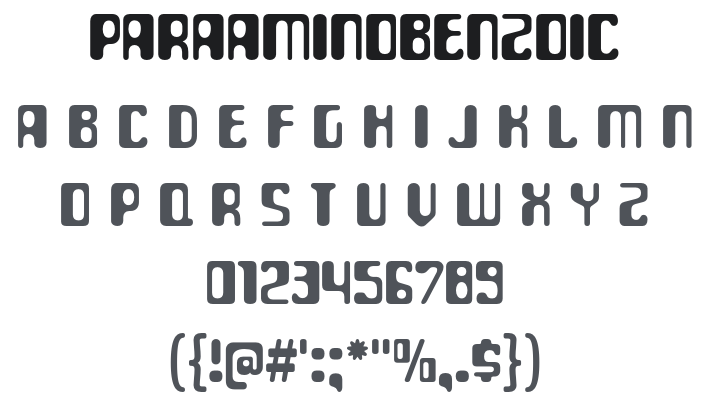
ParaAminobenzoic Font
About ParaAminobenzoic
ParaAminobenzoic is a bold, wide MICR-inspired retro-futuristic display typeface with alien letterforms drawn from 1960s magnetic ink technology — each character carries an otherworldly, rounded-rectangular geometry that feels simultaneously scientific and extraterrestrial. Its confident, spacious proportions give it commanding presence. Perfect for sci-fi branding, retro-tech posters, space-age editorial, laboratory-themed designs, and any headline needing exotic, mid-century futurist authority.